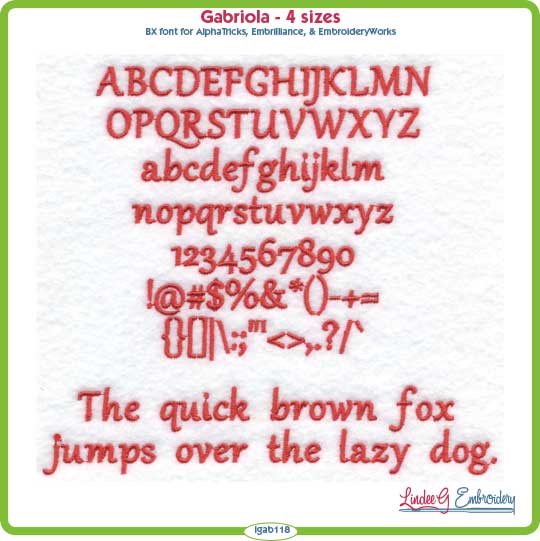
Gabriola Font Similar. This gabriola font will be a great ideal font for every design project, for its stylish glance and crescent shape. What type of font is gabriola ?
Fonts similar to gabriola download now considering. Download more fonts similar to gabriola typeface in category: An opentype font that includes both lining and oldstyle figures.
The design of gabriola was inspired by the calligraphy and writing style of dutch calligrapher, jan van de velde the elder. If you have installed microsoft windows 10 it should be available. Named after gabriola island, in british columbia, canada, it is primarily intended for use at larger sizes, but can also work well in short passages of text.
We are sharing a modern gabriola font that is belonging to the display typeface family. If there are multiple dimensions obtainable please make certain to choose. It looks very similar to gabriola but the k is a bit different.
This font family contains 4 weights including italic, regular. If you are the one liking gabriola then make sure to leave us your review about it in the comment section below. Expressway soft typodermic fonts inc.
This font is part of microsoft windows 10 software package so it cannot be downloaded separately. Gabriola font family a great display typeface with a very stylish texture. The name of the font was given after gabriola island in british columbia, canada.
The font name is based on gabriola island, british columbia, canada. It is been using by microsoft corporation. Making the web more beautiful, fast, and open through great typography